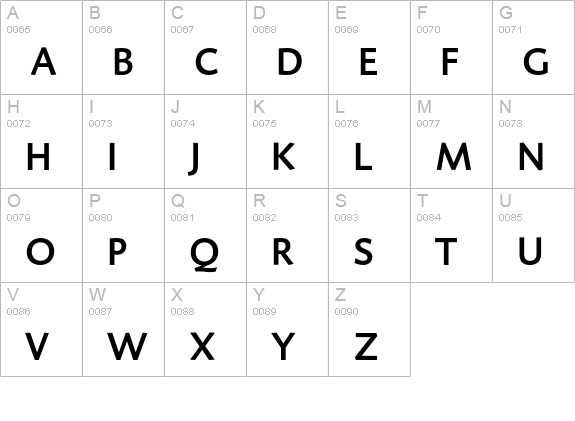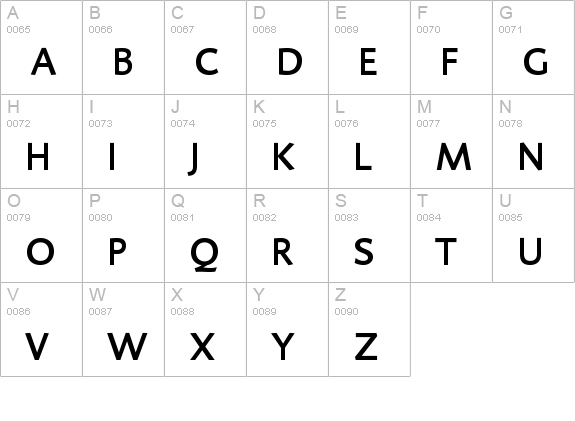
DTLCaspariSTMedium Font Details
DTLCaspariSTMedium is a modern and versatile font that is perfect for various design projects. Its clean lines and balanced proportions make it suitable for both headers and body text. This font exudes a sense of elegance and sophistication, making it ideal for branding, editorial design, and more. What sets DTLCaspariSTMedium apart is that it is available for free download at FontsMarket.com. This means that you can easily access this high-quality font without any cost, making it a valuable addition to your font library. Whether you are a professional designer or a hobbyist, DTLCaspariSTMedium is a must-have font that will elevate your projects to the next level.